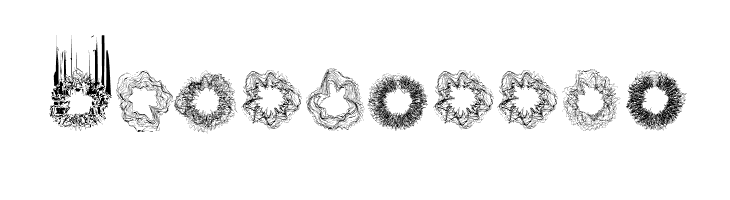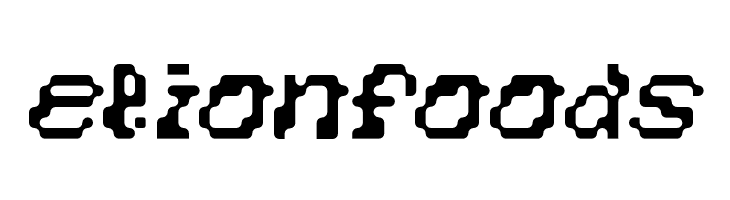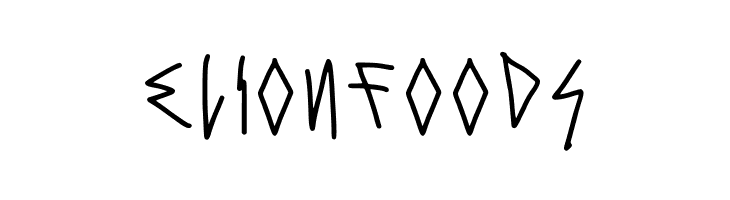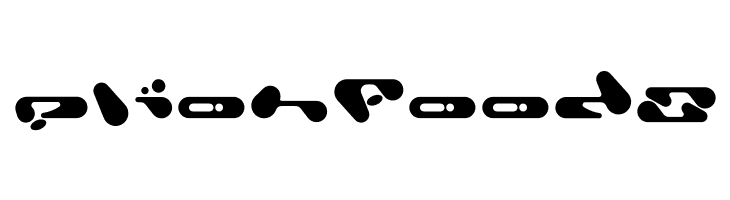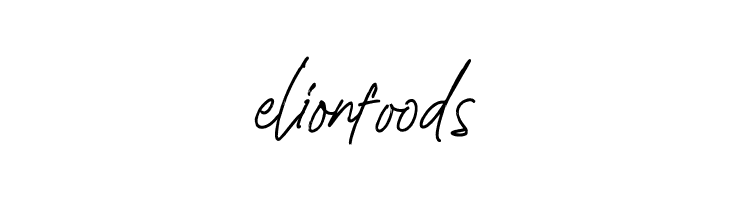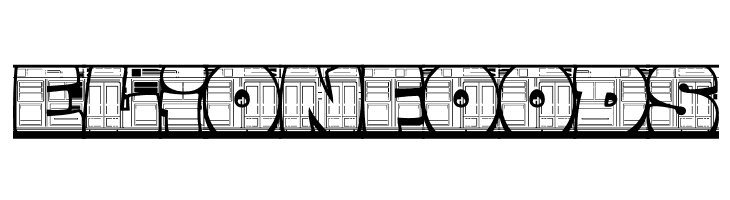
A geometric, octagonal typeface with a modern, technical look.
A modern, geometric font with a clean and structured appearance.
An abstract, decorative font with intricate, swirling lines and organic shapes.
A bold, decorative font with irregular, playful shapes.
An edgy, angular font with sharp lines and a futuristic feel.
A playful, bone-themed font with a quirky and whimsical design.
A bold, decorative font with playful, abstract shapes and rounded strokes.
A clean, handwritten-style font with thin, uniform strokes and a modern aesthetic.
A fluid, handwritten font with a natural and elegant cursive style.
A display font with letters formed from illustrated train cars.